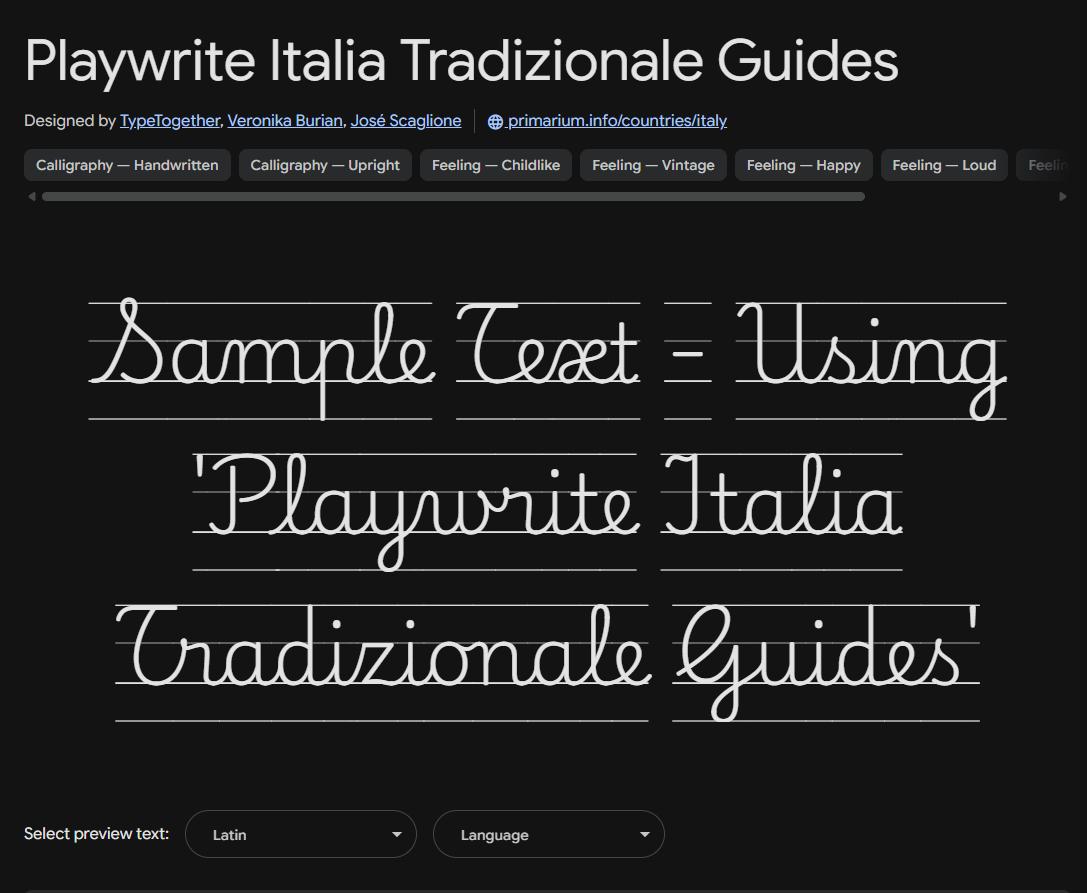
Engineered by the visionary duo Veronika Burian and José Scaglione at TypeTogether, Playwrite Italia Tradizionale Guides serves as a critical pedagogical tool within the digital type landscape, specifically designed to bridge the gap between kinetic penmanship and static screen rendering. This singular-style typeface transcends standard character mapping by embedding instructional vertical metrics and baseline guides directly into the glyph architecture, facilitating an intuitive understanding of x-height and descender ratios inherent to the Italian handwriting tradition. By synthesizing the fluid ductus of traditional script with a robust technical framework, the foundry provides a sophisticated typographic solution that optimizes legibility and stroke sequence for primary education, ensuring that the nuances of letterform construction remain preserved within a modern, accessible font environment.
The Playwrite Italia Tradizionale font family serves as a sophisticated bridge between pedagogical utility and expressive graphic design, utilizing a variable font architecture that stabilizes the tension between its upright calligraphy structure and a spirited, handwritten aesthetic. Engineered for high legibility within primary education frameworks, this typeface mirrors the rhythmic stroke modulation of Italian school models, infusing digital layouts with a childlike spontaneity and a vintage warmth that evokes mid-century scholastic heritage. Despite its upright formal constraints, the font projects a playful and happy cadence through its generous apertures and organic terminal treatments, while its rugged textural integrity ensures the glyphs remain loud and impactful across diverse high-DPI displays. By balancing traditional pen-logic with modern kerning precision, Playwrite Italia Tradizionale transforms the rigid standards of cursive instruction into a versatile tool for designers seeking an authentic, nostalgic, yet functionally robust typographic voice.
Due to its integrated pedagogical scaffolds-specifically the embedded horizontal ruling lines designed by Veronika Burian and José Scaglione for primary handwriting instruction-Playwrite Italia Tradizionale Guides is fundamentally unsuitable for high-density corporate environments, such as financial data reporting or medical user interfaces, where extraneous visual noise compromises OCR compatibility and rapid information retrieval. The presence of permanent baseline, x-height, and ascender guides introduces significant rhythmic interference that violates modern accessibility heuristics, as these skeletal decorations inflate cognitive load and obscure character recognition in low-resolution digital environments or professional branding. Consequently, this typeface should be avoided in any context requiring clean typographic hierarchy or compliance with WCAG legibility standards, as its specialized didactic architecture actively hinders the fluid scanning required for legal documentation and enterprise-grade UX design.
Playwrite Italia Tradizionale represents a formal cursive script style based on the pedagogical standards used in Italian primary education. The typeface adheres to the Modello Italico structure, utilizing specific slant angles and ductus patterns to facilitate fluid letterform construction.
Integrated guide lines provide a visual framework that ensures consistent x-height and ascender-descender alignment across the baseline. These metrics function as hard-coded glyph components within the font's em-box, allowing designers to maintain vertical rhythm without manual rule-line overlays.
This font is an ideal choice for primary school worksheets because it mirrors the handwriting movements taught to young learners. By leveraging the Unicode-compliant glyph set, educators can generate high-fidelity tracing exercises that align with the Common Core and European pedagogical frameworks.
Effective color contrasts involve using a high-chroma dark hue for the characters while keeping the guide lines in a low-opacity or pastel tone. Maintaining a minimum contrast ratio of 4.5:1 for the primary strokes ensures WCAG accessibility compliance while the guide lines function as subtle structural cues.
The integrated guide lines facilitate digital handwriting practice by providing a stable reference for stylus-based input on tablet devices. High-resolution rendering of the font's vector paths allows for precise stroke-tracking analytics in educational software interfaces.
The font provides comprehensive support for standard Italian diacritics, including all necessary grave and acute accent marks. Character encoding follows the Latin-1 Supplement block, ensuring that glyphs like 'è', 'ò', and 'ù' maintain stylistic consistency with the cursive stems.
Character connections in this script are handled through sophisticated OpenType features that automatically adjust entry and exit strokes. The calt (contextual alternates) and liga (standard ligatures) tables ensure that the transition between varying glyph widths remains fluid and architecturally sound.
Clean, geometric sans-serif fonts offer a balanced contrast to the fluid, rhythmic nature of this traditional script. Pairing the script with a low-contrast grotesque like Inter or Roboto creates a harmonious hierarchy by balancing calligraphic complexity with high-legibility terminal geometry.
While legible at moderate sizes, the intricate connections and guide lines may become cluttered when printed at very small point sizes. Performance data suggests that maintaining a minimum size of 12pt is critical to prevent the ink trap effects from obscuring the subtle thin-to-thick stroke transitions.
The "Guides" version significantly increases the required line height to accommodate the extra vertical space occupied by the rule lines. Typographic bounding box values, specifically the OS/2 TypoAscender and TypoDescender, are expanded in this variant to prevent overlapping between the descender guides of adjacent lines.